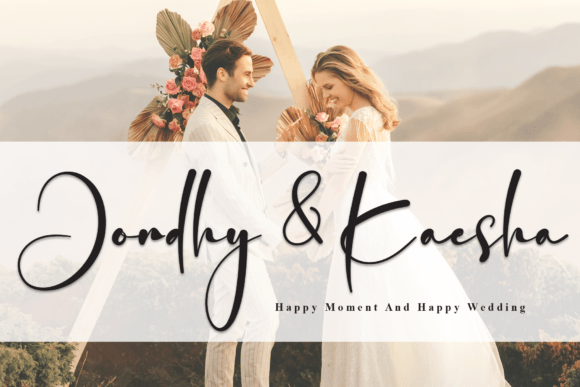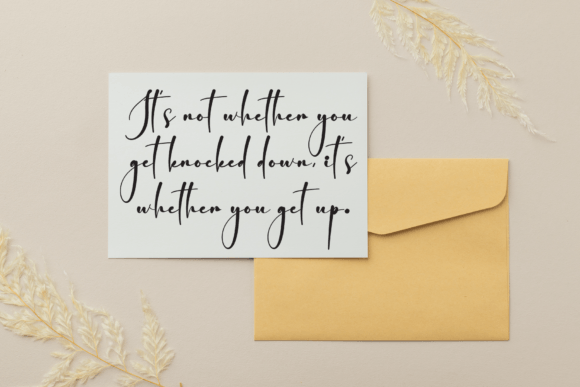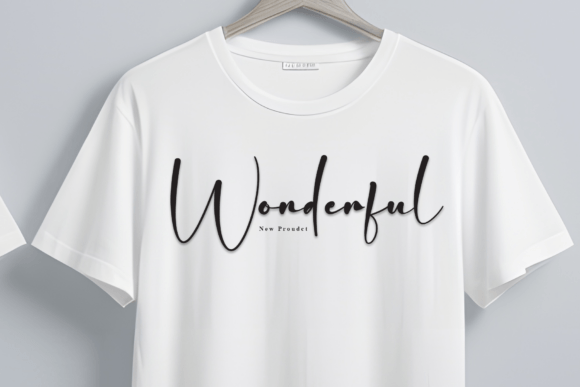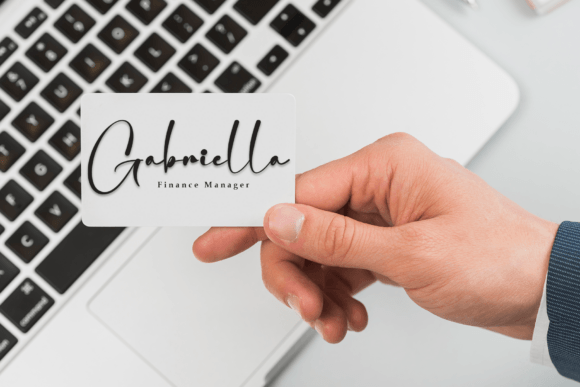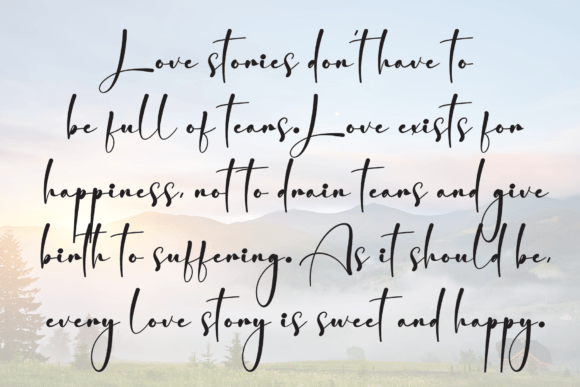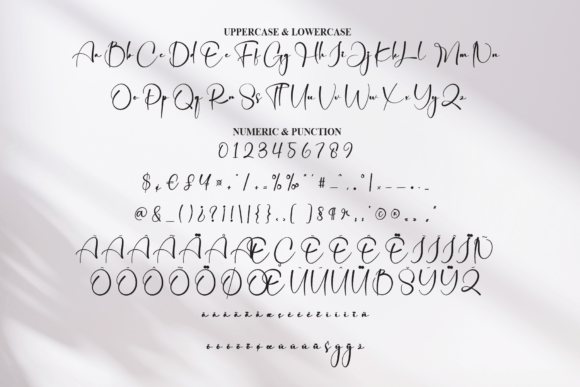
Adding a Personal Touch: The Charm of Catalina Font
Have you ever been in a rush to create a special invitation, but couldn’t find the perfect font to capture the essence of the moment? You’re not alone. We’ve all been there, struggling to convey the emotions and feelings we want to express through our words. That’s where the beautiful Catalina Font comes in – a warm and friendly handwritten font that adds a personal touch to any project.
Designed to be both casual and elegant, Catalina Font is perfect for invitations, greeting cards, and any creative project where you want to make a lasting impression. Its flowing letters give your text a unique charm and character that’s hard to find in other fonts. For designers, Catalina Font is a valuable tool to add a personal and emotional touch to their work, making it stand out in a crowded market.
Catalina Font Key Features
- Font Family: Catalina
- Font Style: Script
- Unique Characteristics: Elegant, cursive design with a touch of sophistication and whimsy, making it suitable for invitations, quotes, and other decorative text
Catalina Font Review
Overall, I’m quite impressed with the Catalina Font. It’s a great addition to any design project, especially those that require a touch of elegance and sophistication. ✨ Here are a few things that I think work well:
- Legibility: The font is highly legible, making it perfect for body text.
- Flexibility: Catalina Font comes in a variety of weights and styles, giving designers the freedom to experiment with different looks.
- Style: The font’s classic, vintage vibe is perfect for creating a nostalgic or retro feel in your design.
That being said, there are a few limitations to consider:
- Lack of distinctiveness: While the font is beautiful, it’s not particularly unique or attention-grabbing.
- Limited expressiveness: The font’s classic style can make it feel a bit sterile or unemotional in certain contexts.
- May not be suitable for modern designs: The font’s vintage aesthetic may clash with modern design trends.
Overall, I’d give the Catalina Font 4 out of 5 stars. It’s a solid choice for designers who want a classic, elegant look, but may not be the best fit for those looking for something more modern or edgy. ⚠️
Catalina Font is ideal for creating elegant and sophisticated designs, such as:
- Editorial and magazine layouts
For optimal results, use Catalina Font in combination with other elegant fonts and carefully select the font size and color to create a cohesive design.